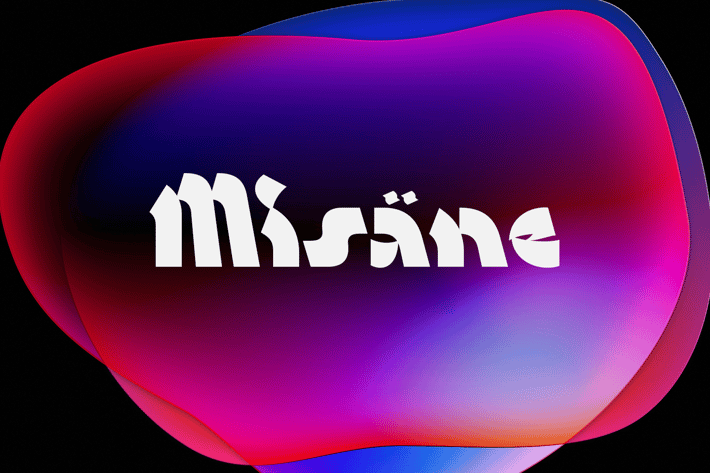
Misane Font
Introducing Misane Typeface, each character is carefully crafted to raise a futuristic. Featuring lines and geometric shapes remind of advanced technology. This font stands out with its unique features, making it perfect for modern logotype creation tool.